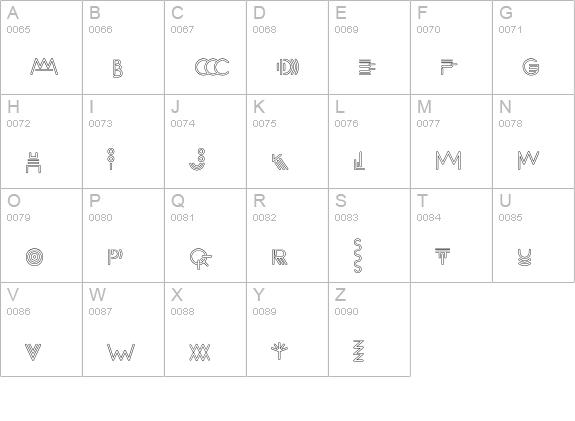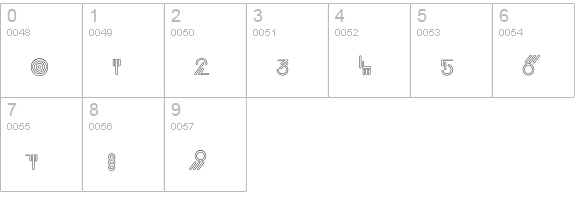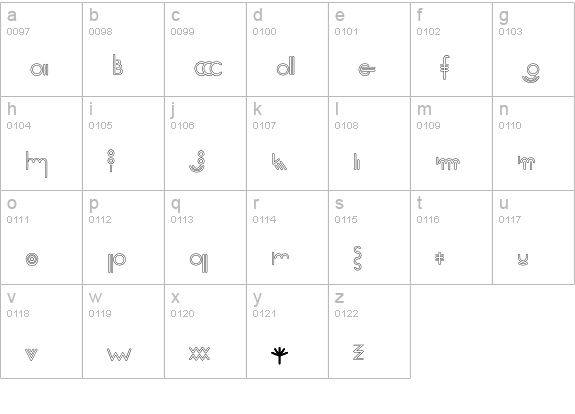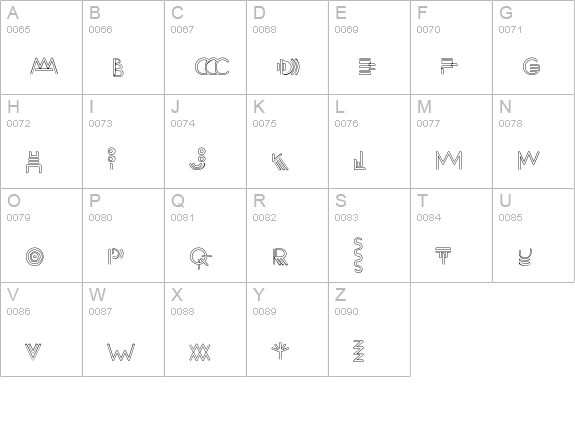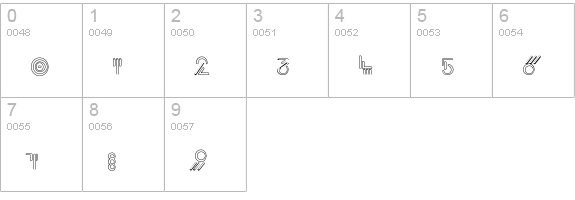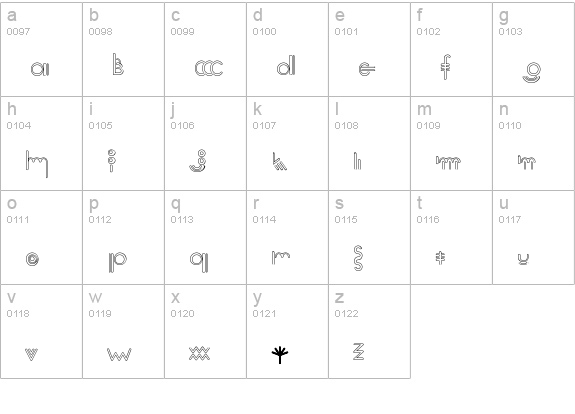
Yakkmakk Font Details
Introducing Yakkmakk font, a versatile and stylish typeface that will add a touch of elegance to your designs. With its unique blend of modern and classic elements, Yakkmakk font is the perfect choice for a wide range of projects, from branding to editorial design. What makes Yakkmakk font even more appealing is that it is completely free to download at FontsMarket.com. This means you can enjoy all the benefits of this beautiful font without any cost. Whether you're a professional designer or a hobbyist looking to enhance your projects, Yakkmakk font is sure to impress with its clean lines and sophisticated aesthetic. Don't miss out on this opportunity to elevate your designs with Yakkmakk font. Download it for free today and see the difference it can make in your creative work.